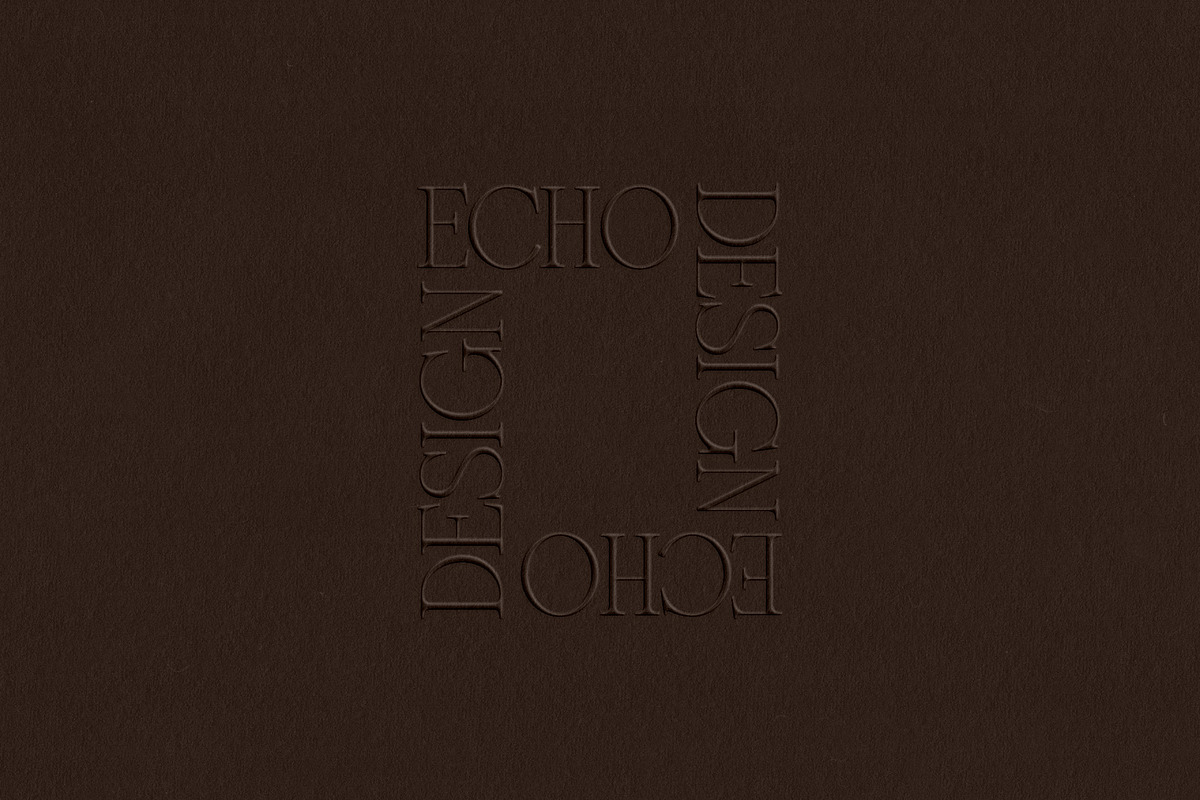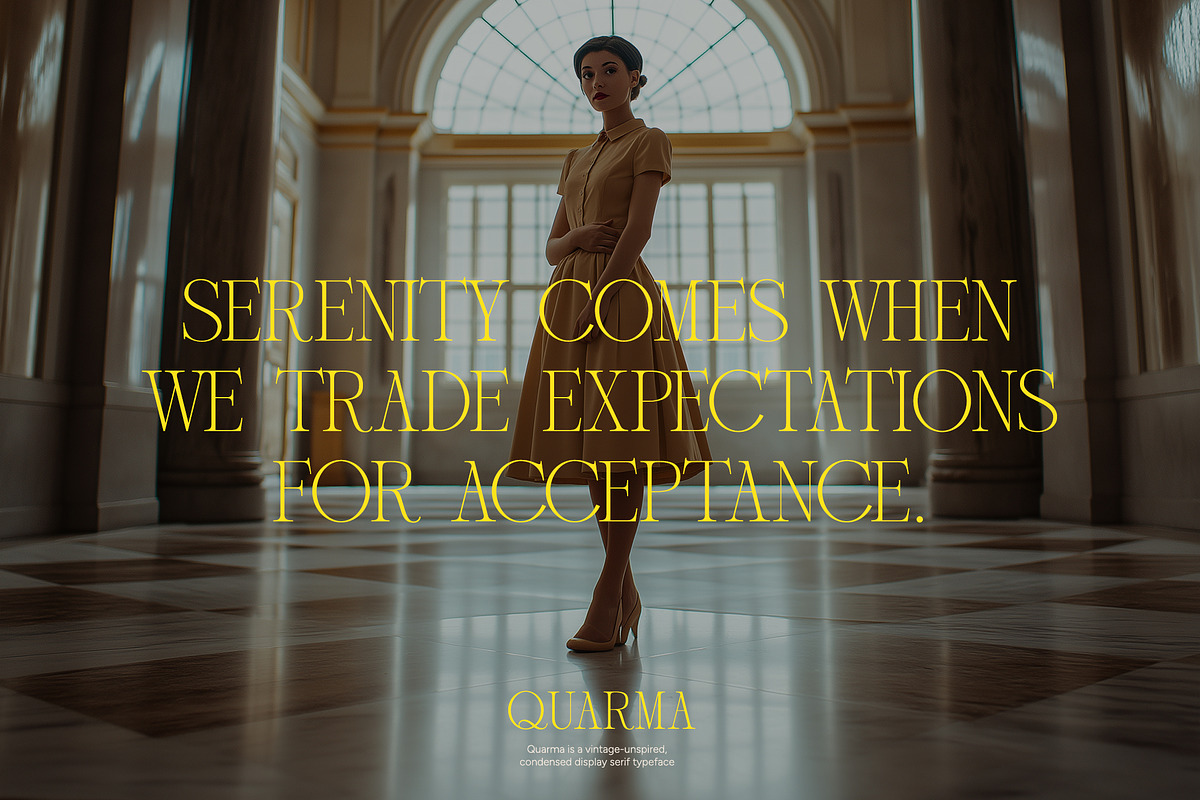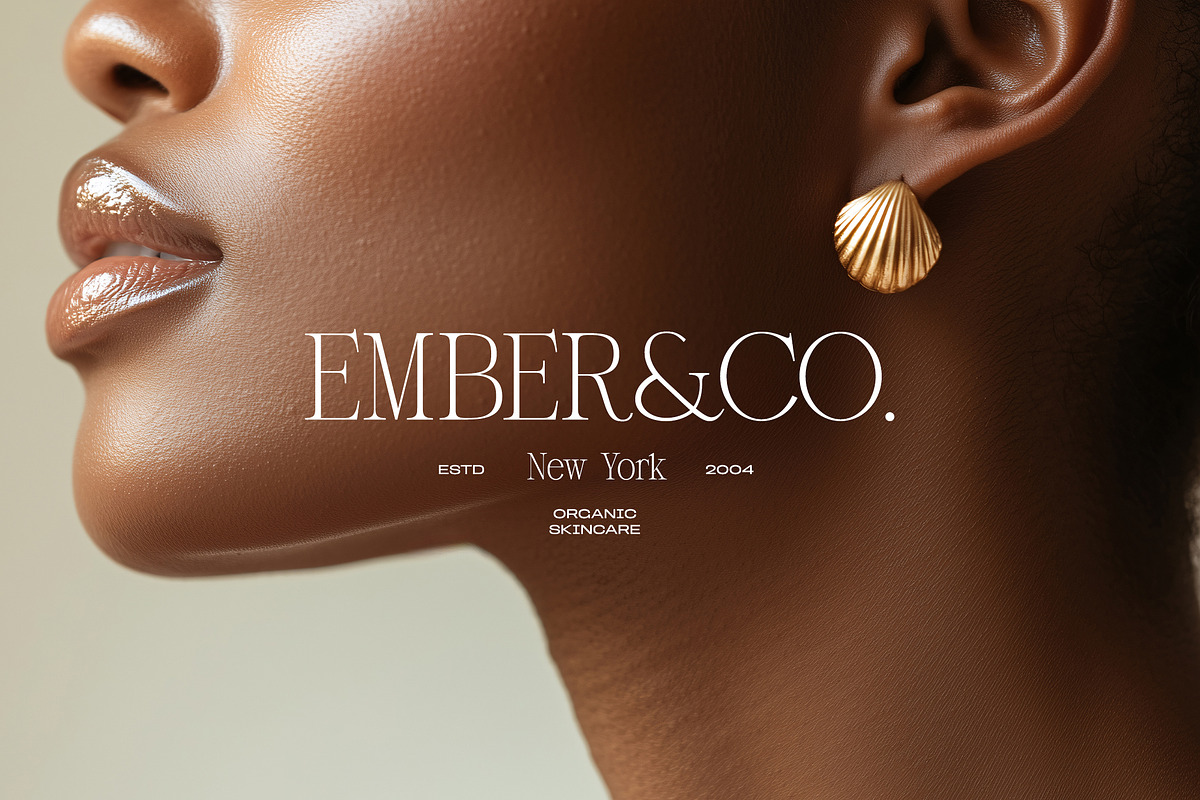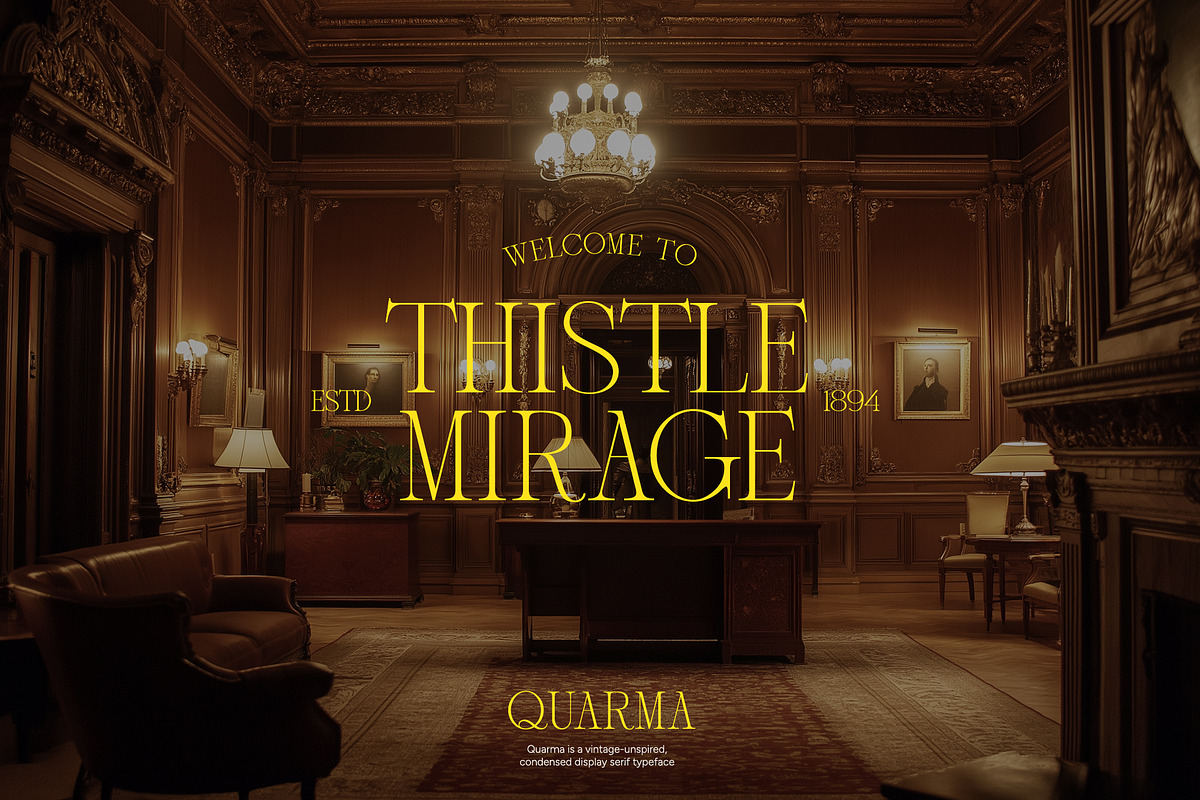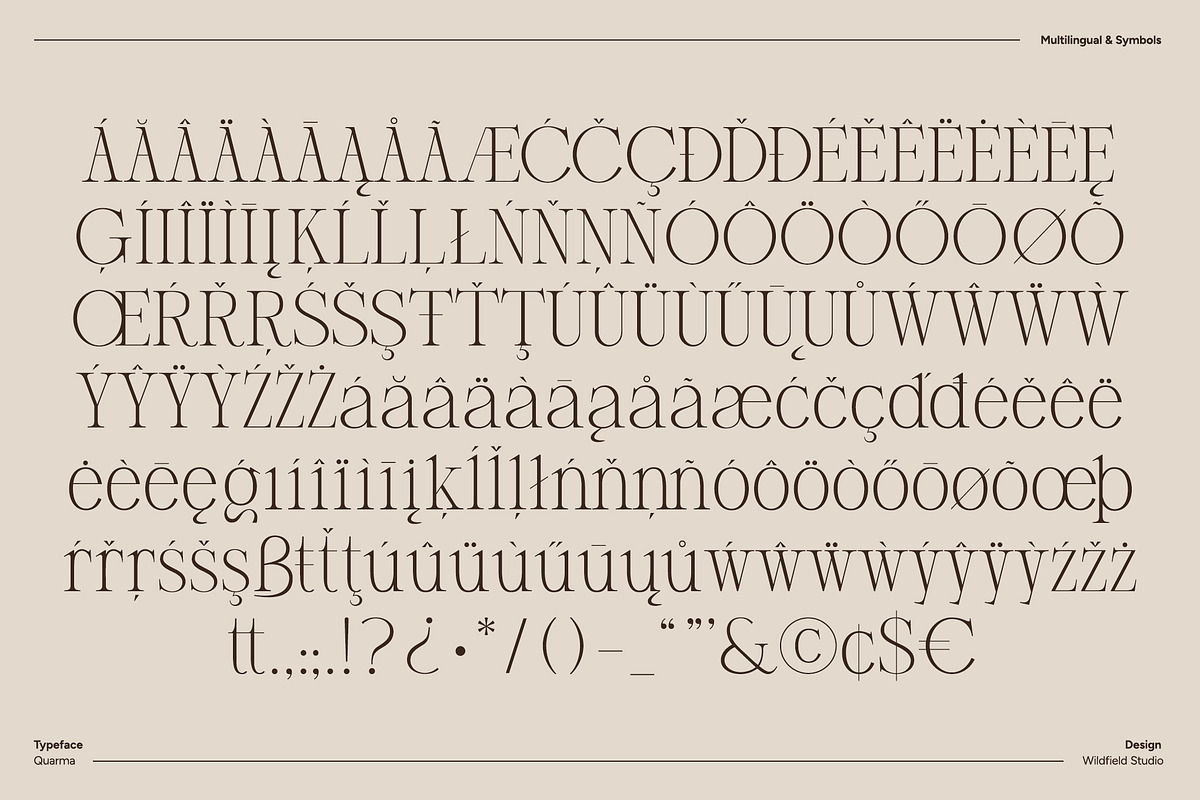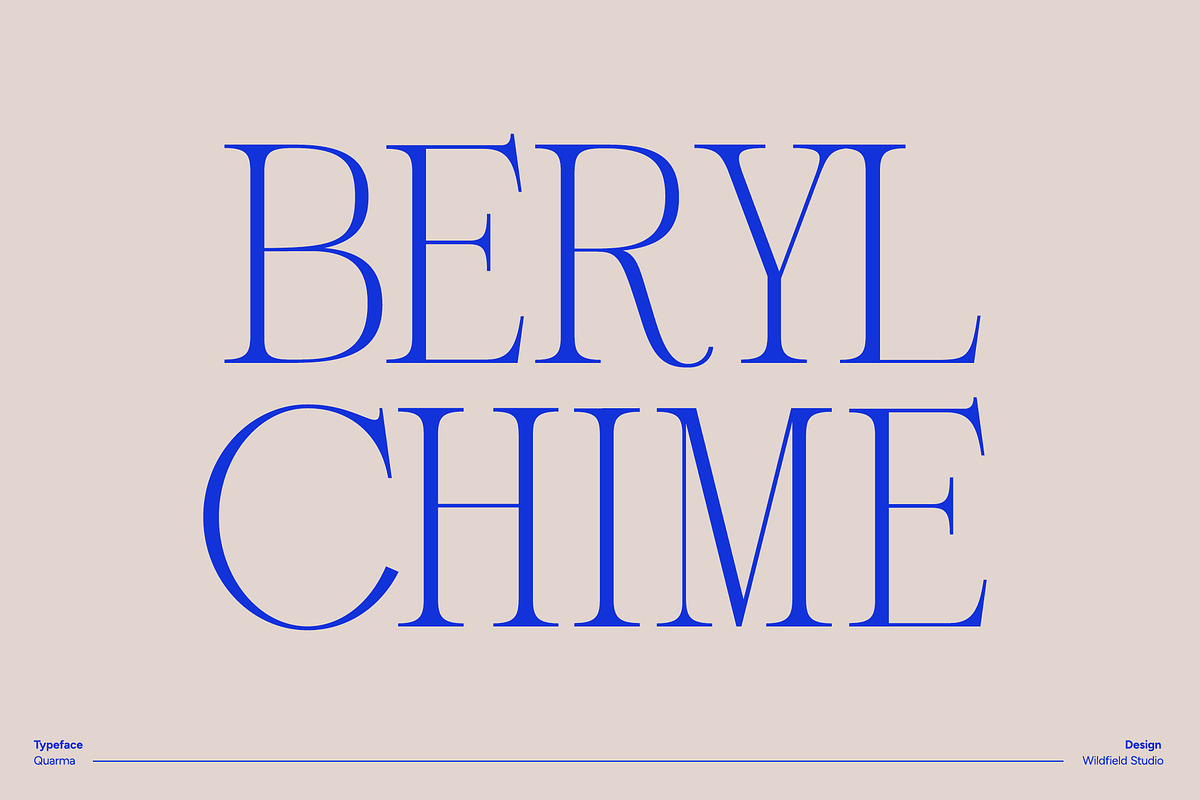
Quarma – Elegant Classy Serif
Introducing Quarma – an elegant, vintage-inspired display serif font with a modern twist. Slightly condensed, it’s perfect for logos, branding, packaging, and headlines in both print and web projects. With multilingual support, Quarma ensures your design retains its refined charm in any European language.